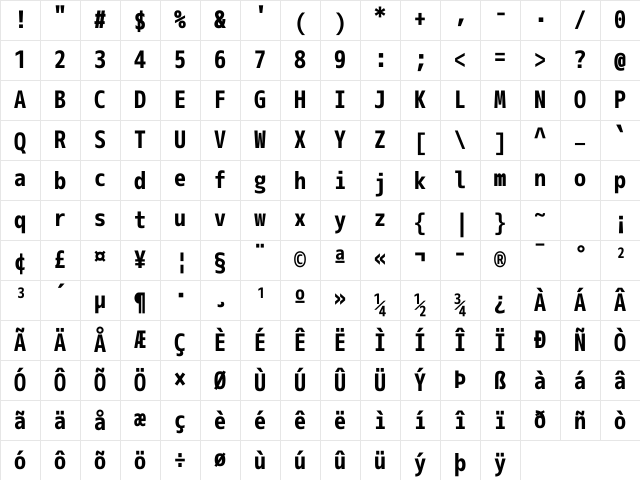
mplus NF Bold Free Font
mplus NF Bold
Design Context for mplus NF
mplus NF is a composed and adaptable typeface that performs quietly and consistently across a wide range of design contexts. Its bold stroke weight gives it real presence on the page.